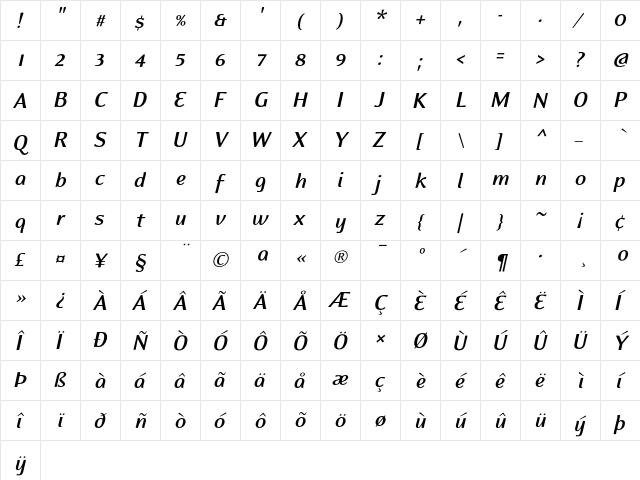
EideticModern Bold Italic
Design Context for EideticModern Typeface
EideticModern takes a measured approach to typography — its balanced proportions and neutral character make it a reliable workhorse for both digital and print work. Its italic angle brings a sense of urgency and motion to the letterforms. Its bold stroke weight gives it real presence on the page.
Pro Tip: Use EideticModern for emphasis, pull quotes, and subheadings where its slanted energy can add rhythm to the layout.